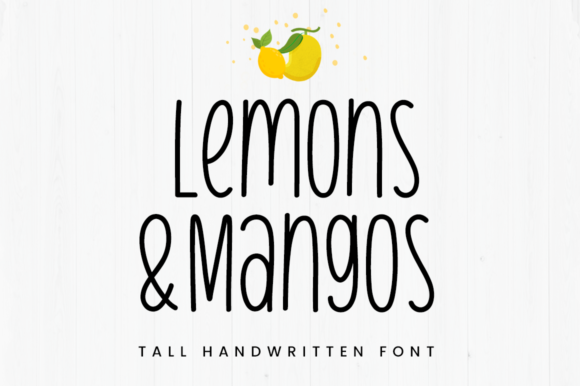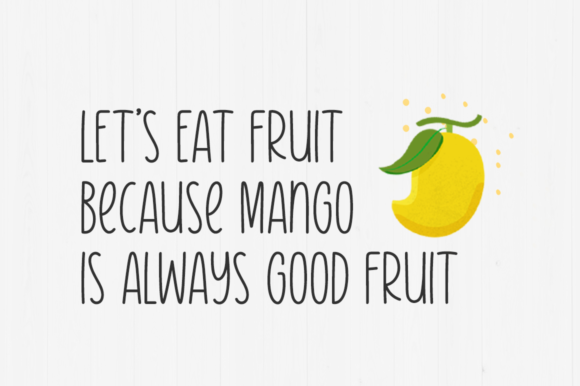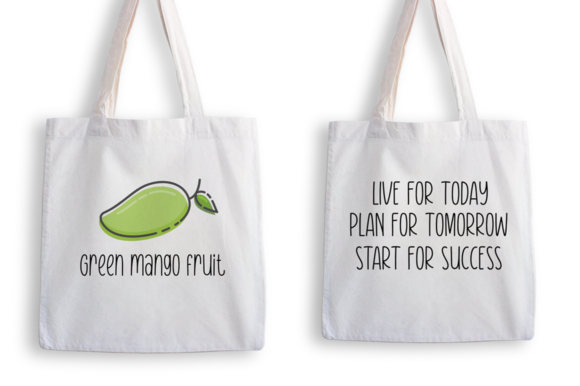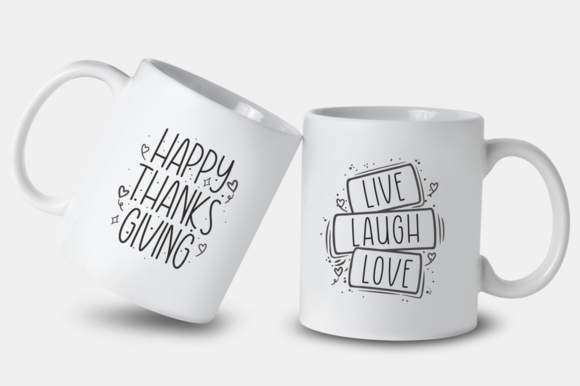
Lemons & Mangos Font: A Cute Handwritten Font for Cricut & DIY Projects!
About the Lemons & Mangos Font
Experience the unique personality of Lemons & Mangos Font, a font designed for impact. Lemons & Mangos is a simple handwritten font but with powerful visual effects. Add it to your work, and it will instantly make your creations more eye-catching than others!
Its informal, yet bold character makes Lemons & Mangos ideal for headlines, short text blocks on posters, and branding elements where a friendly, approachable feel is desired. It works particularly well for food and beverage brands, children’s products, or projects with a summery, vibrant aesthetic. Avoid using it for body text or lengthy paragraphs; its handwritten nature reduces readability at smaller sizes.
Consider pairing Lemons & Mangos with a clean sans-serif like Open Sans for a balanced contrast, or a playful script font like Pacifico for a cohesive, hand-drawn feel. A geometric sans-serif like Montserrat could also work for a more modern, sophisticated look.
The font’s core personality is best described as friendly and bold, conveying approachability and a touch of playful energy.
Lemons & Mangos Font Usage Examples
Lemons & Mangos Font Example